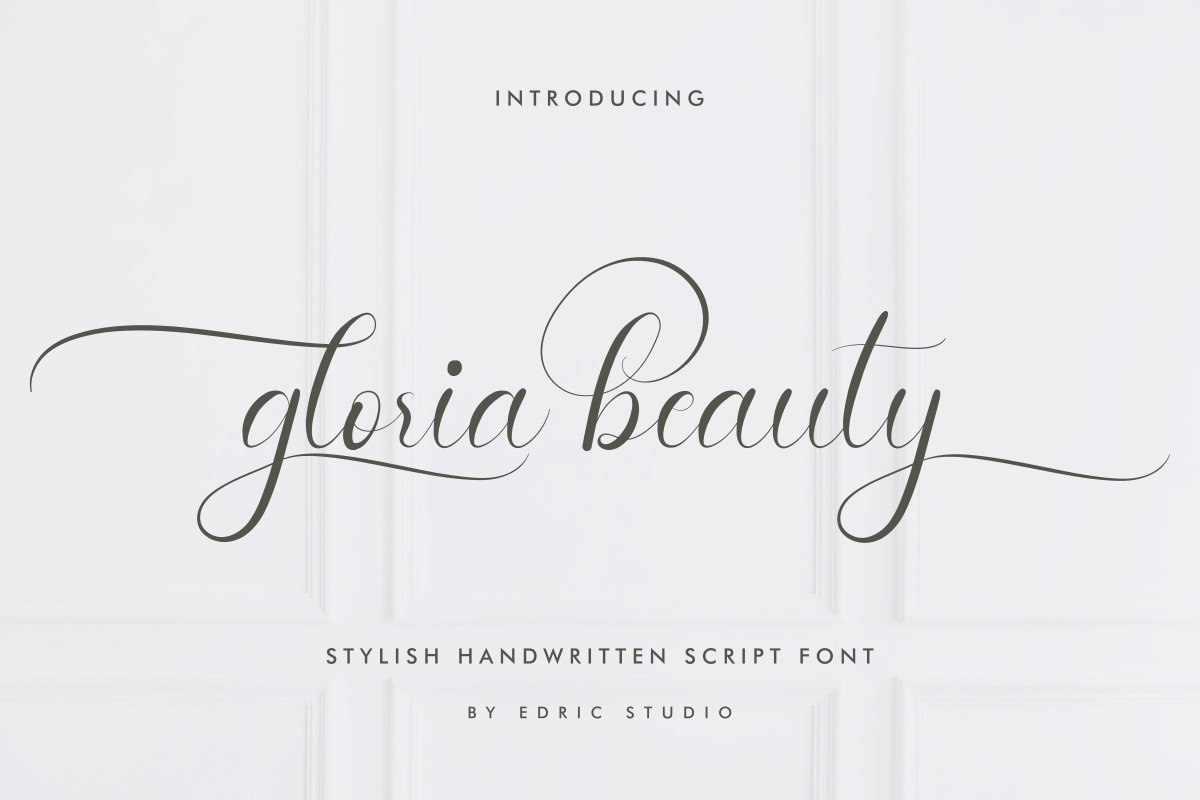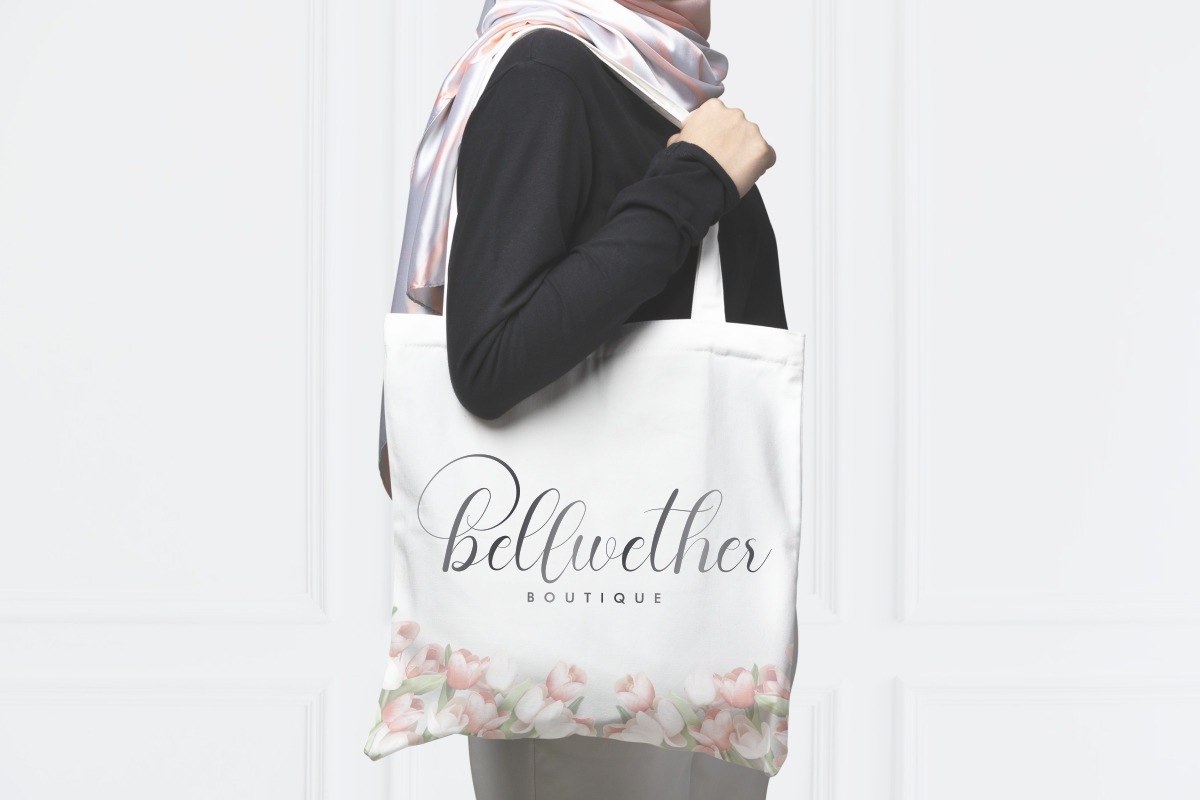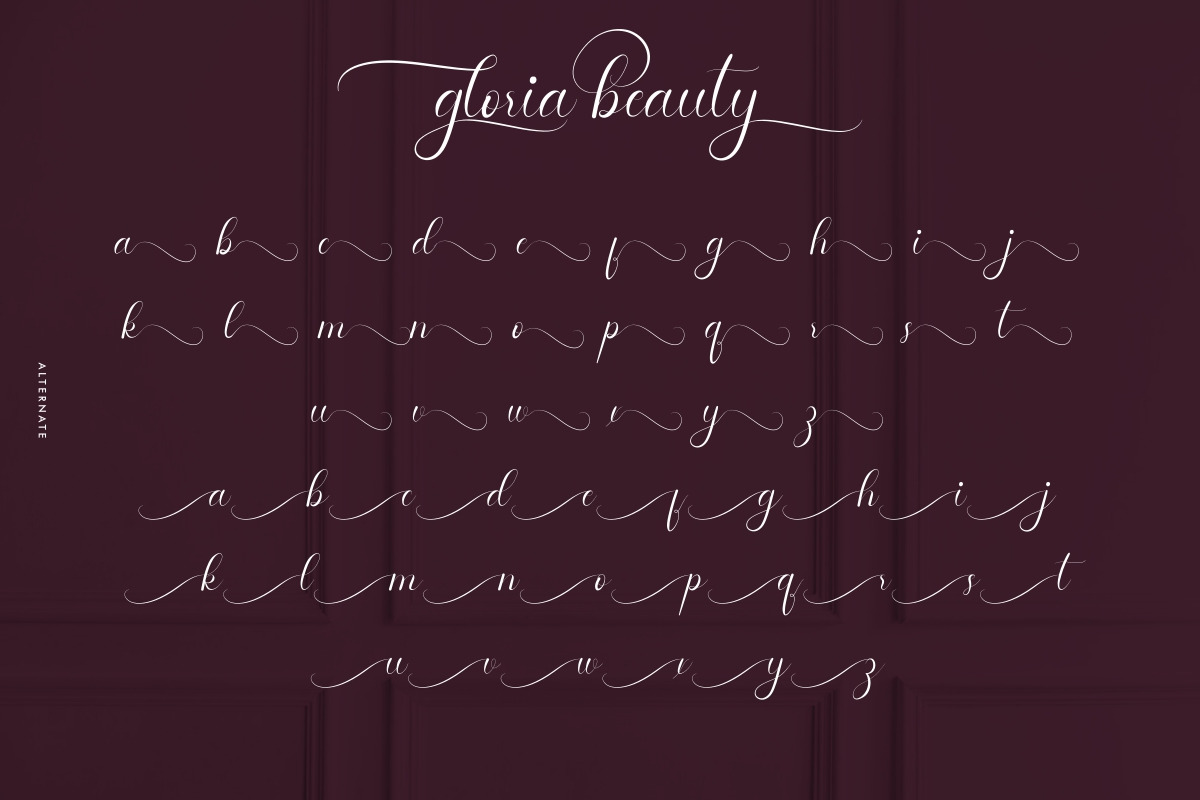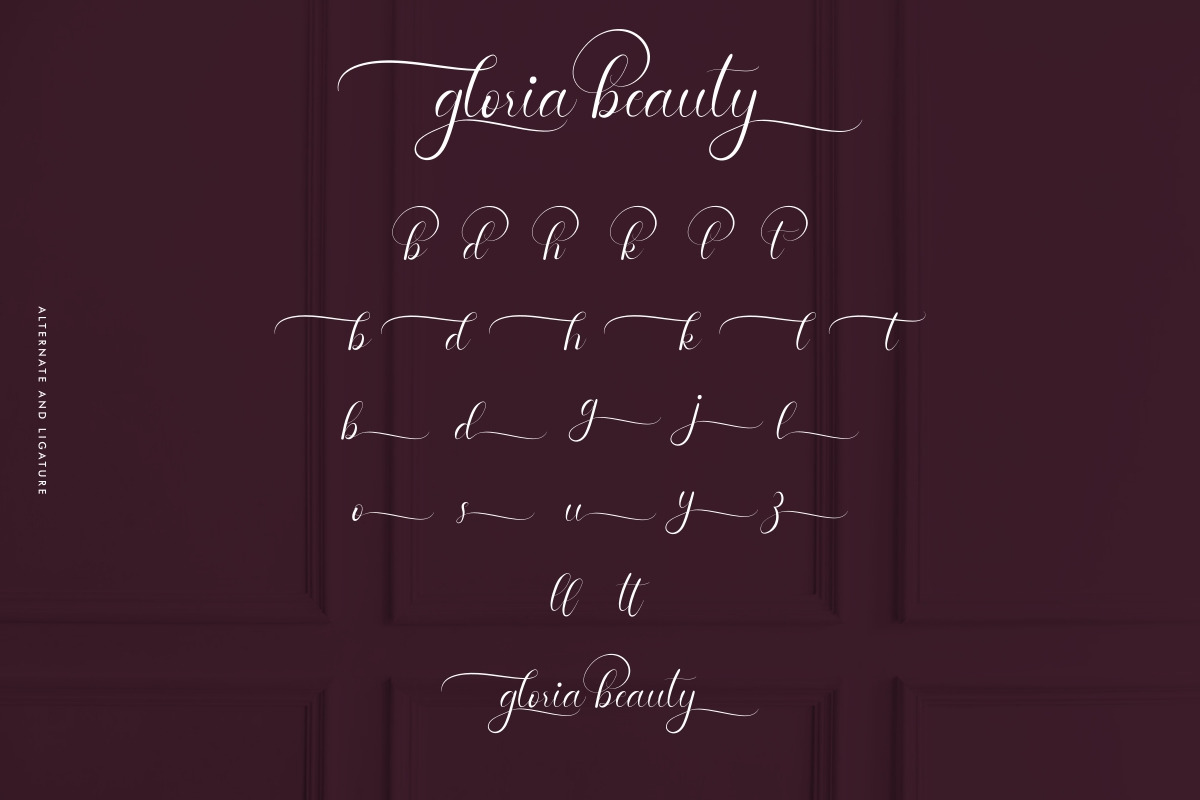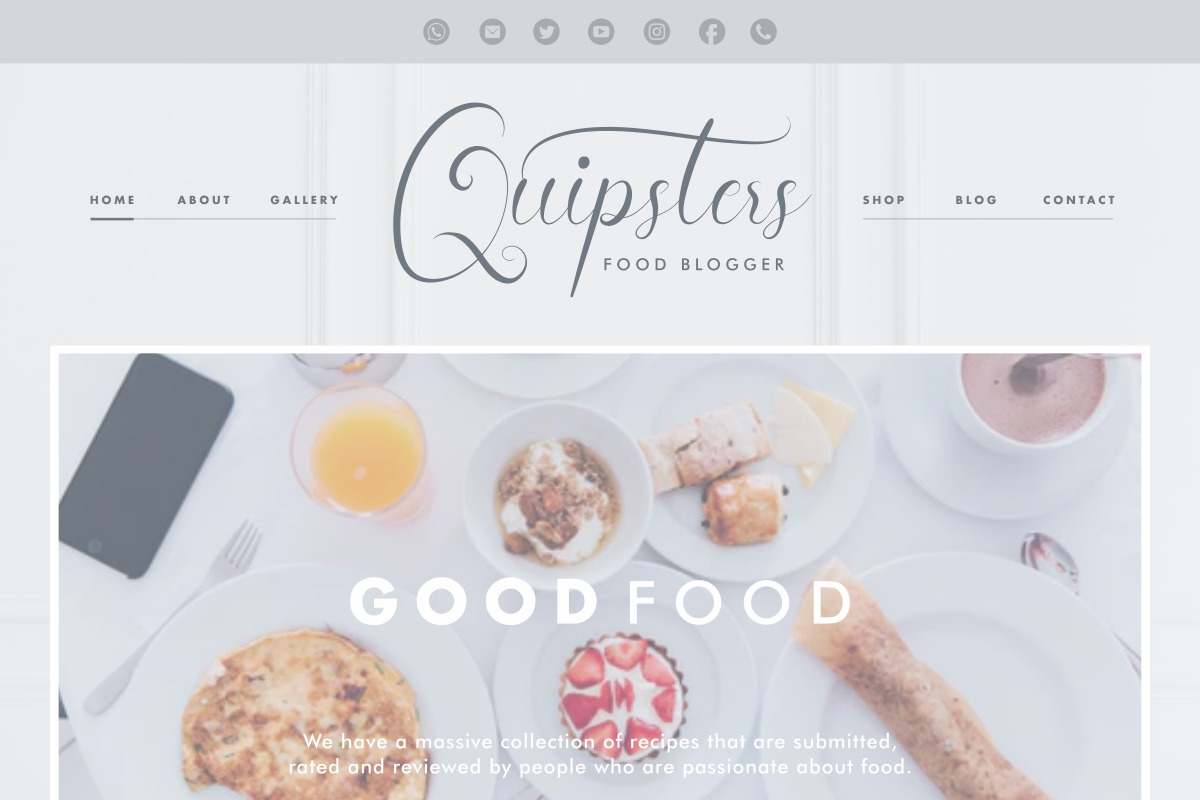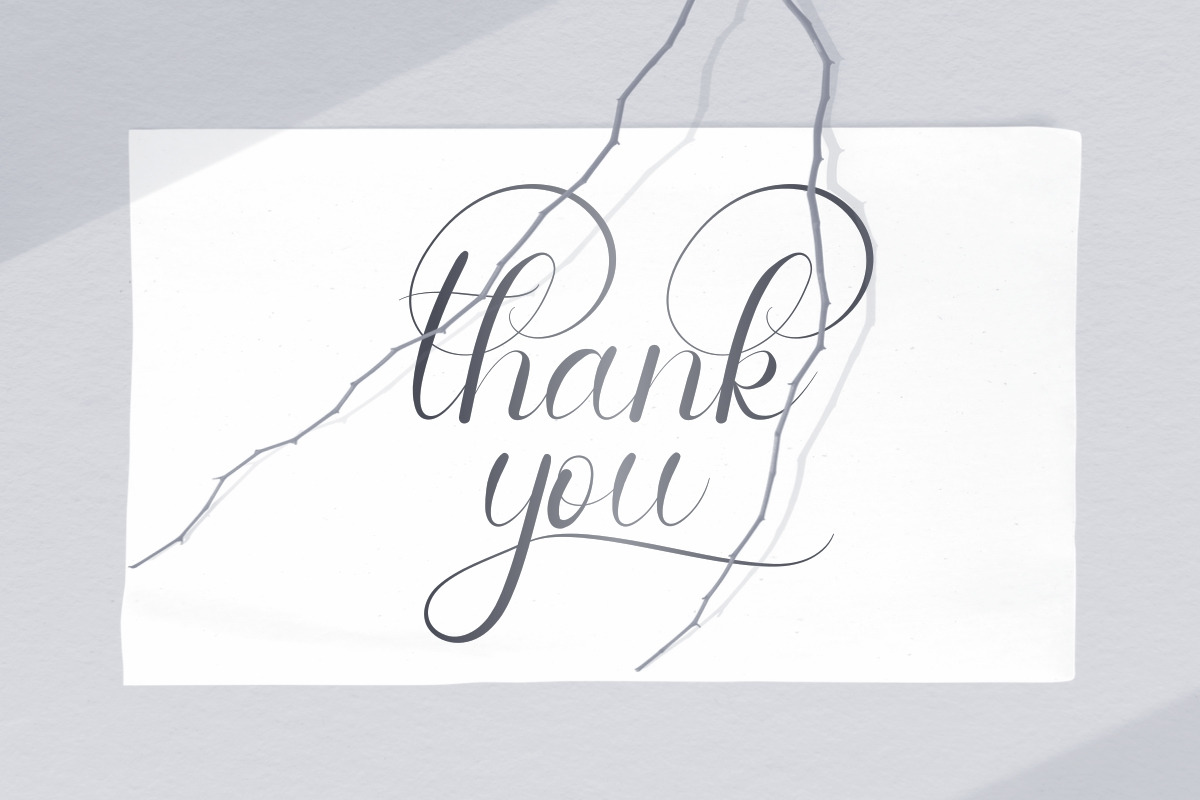
Gloria Beauty Calligraphy Font
Introducing!
Our newest font : Gloria Beauty Font
This is a Calligraphy font, handcrafted from our Studio here in, Indonesia. The artists/designers of this beautiful tyeface is Widiyanti and Suci.
Gloria Beauty Font is a handwritten calligraphy script typeface with brush style. This font has a stunning characters set, perfectly managed with well spaced and kerning. The theme style of this font will elegant, vintage, stylish, sophisticated and classic brush calligraphic style. You wont find any where else, the font like Gloria Beauty Font .
Gloria Beauty Font will be great for any projects including : branding, logo, stationery, business card, signage, flyer, brochure etc. Almost all industries will be match for this typeface: wedding, events, real estate, architect, law firm, florist, gardening, makeup artist, travel, hotel, musician etc